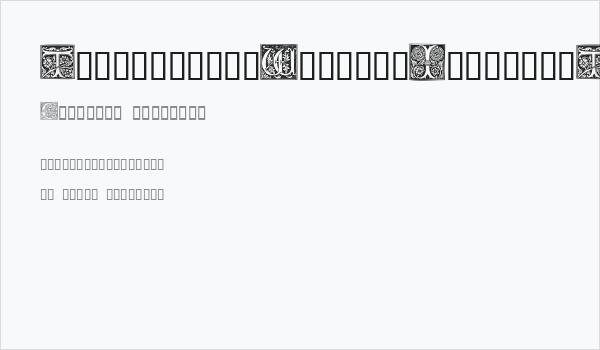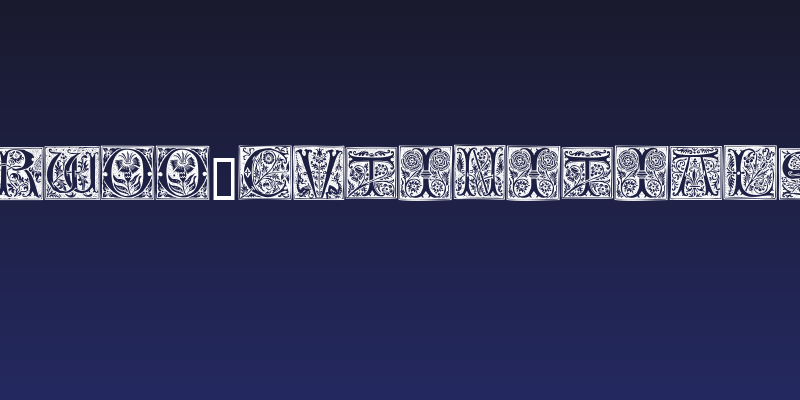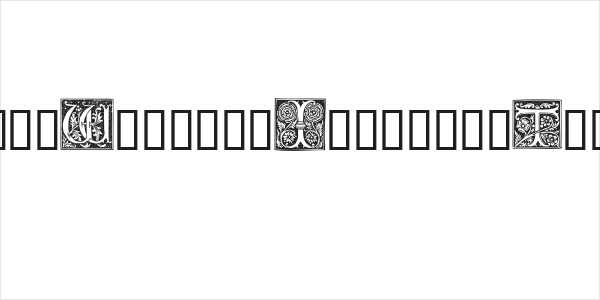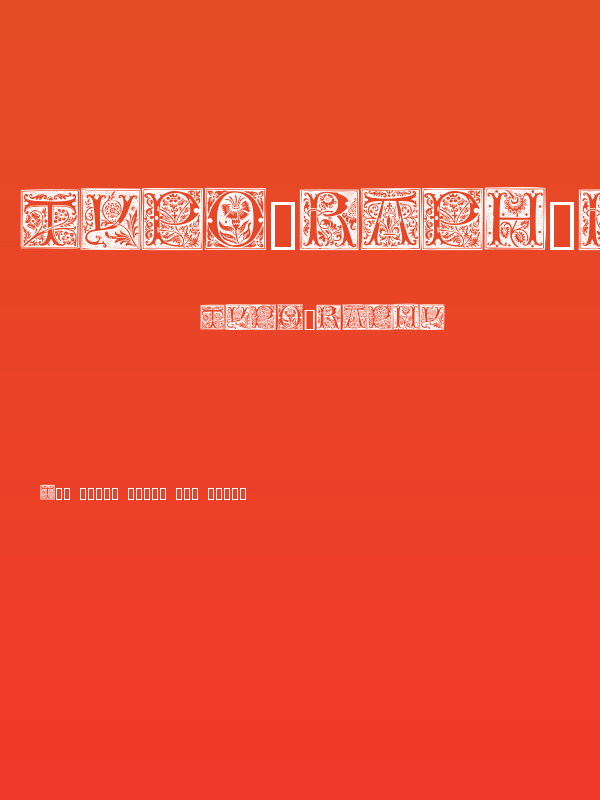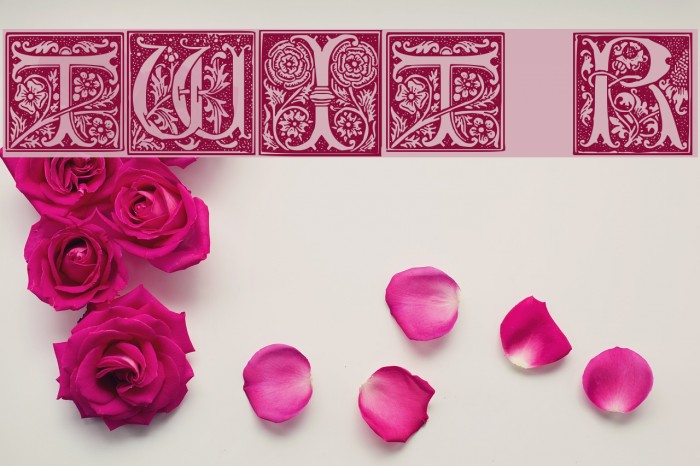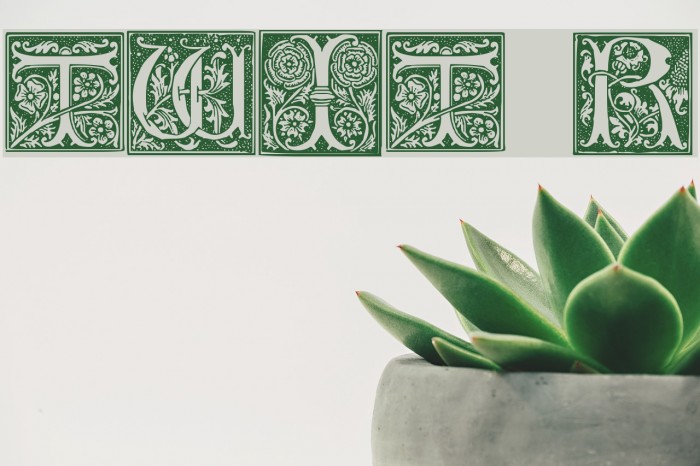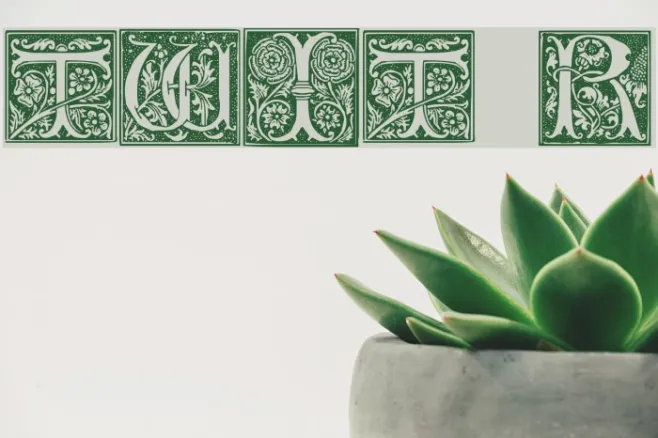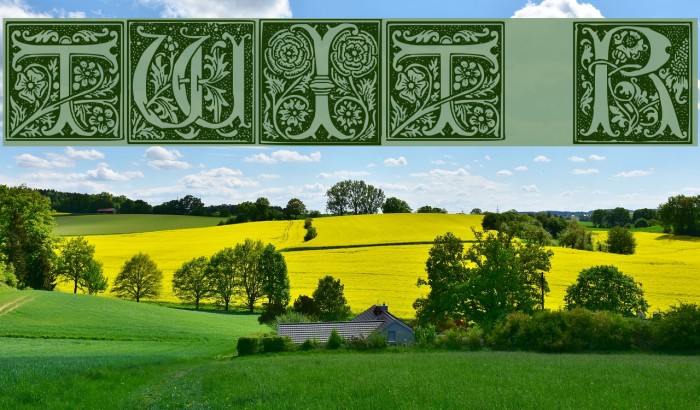
TypographerWoodcutInitialsTwo Reduced Font
TypographerWoodcutInitialsTwo Reduced Description
This font features ornate, decorative initials reminiscent of traditional woodcut designs. Each letter is intricately detailed with floral and vine motifs, creating a rich, textured appearance. The style is highly decorative, with a vintage feel that evokes historical manuscripts and early printmaking techniques. The letters are enclosed in square frames, enhancing their ornamental quality. This font is ideal for projects that require a touch of elegance and historical charm, such as invitations, book covers, or branding for luxury products.
| Proposed Projects | Ideal for invitations, book covers, luxury branding, and historical-themed designs. |